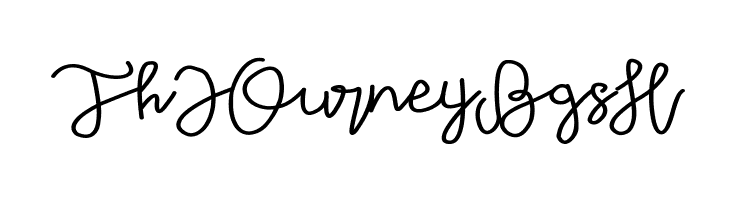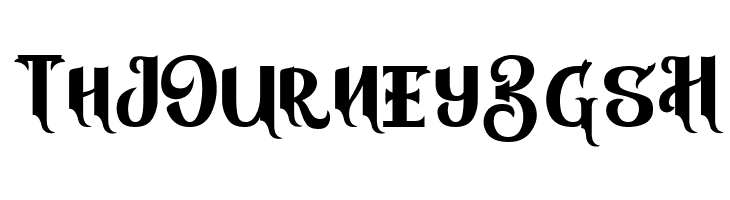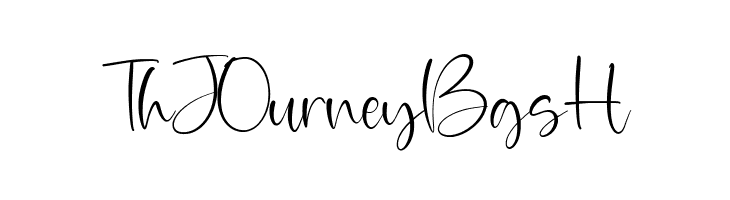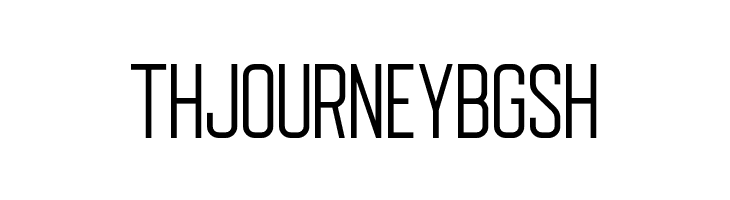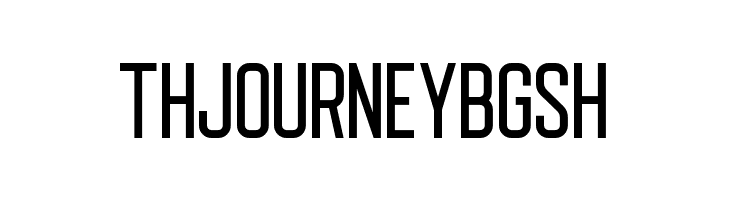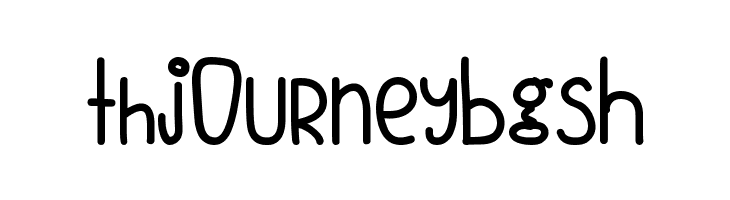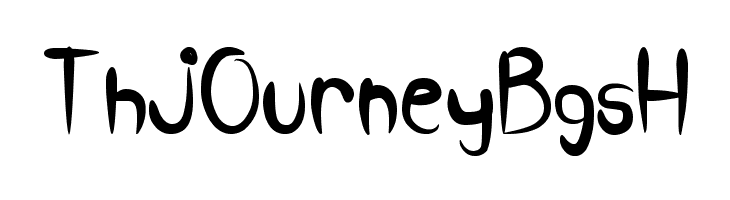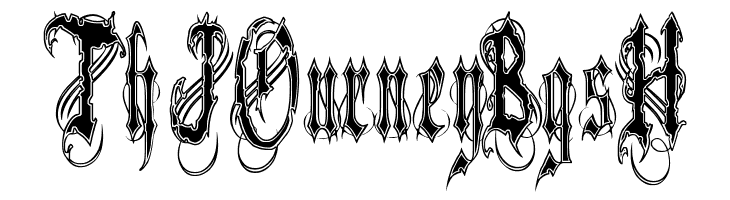
• Vilova
• violante
A lively, expressive handwritten font with fluid, dynamic strokes.
• Vires Gollem
A bold, gothic-style font with intricate details and sharp edges.
• VladTepes II [Vlads Dad]
An ornate, Gothic-style font with elaborate flourishes and sharp, angular lines.
• VladTepes II [Vlads Dad]
• VladTepesII [Vlads Dad]
An ornate Blackletter font with intricate, gothic-inspired designs.
• VMF_Oh_ForMe
• VMF_Style_ttf
• Voltage
A bold, geometric font with a modern and sleek design.
• Voltage-Light
A modern, narrow font with clean lines and a sophisticated style.